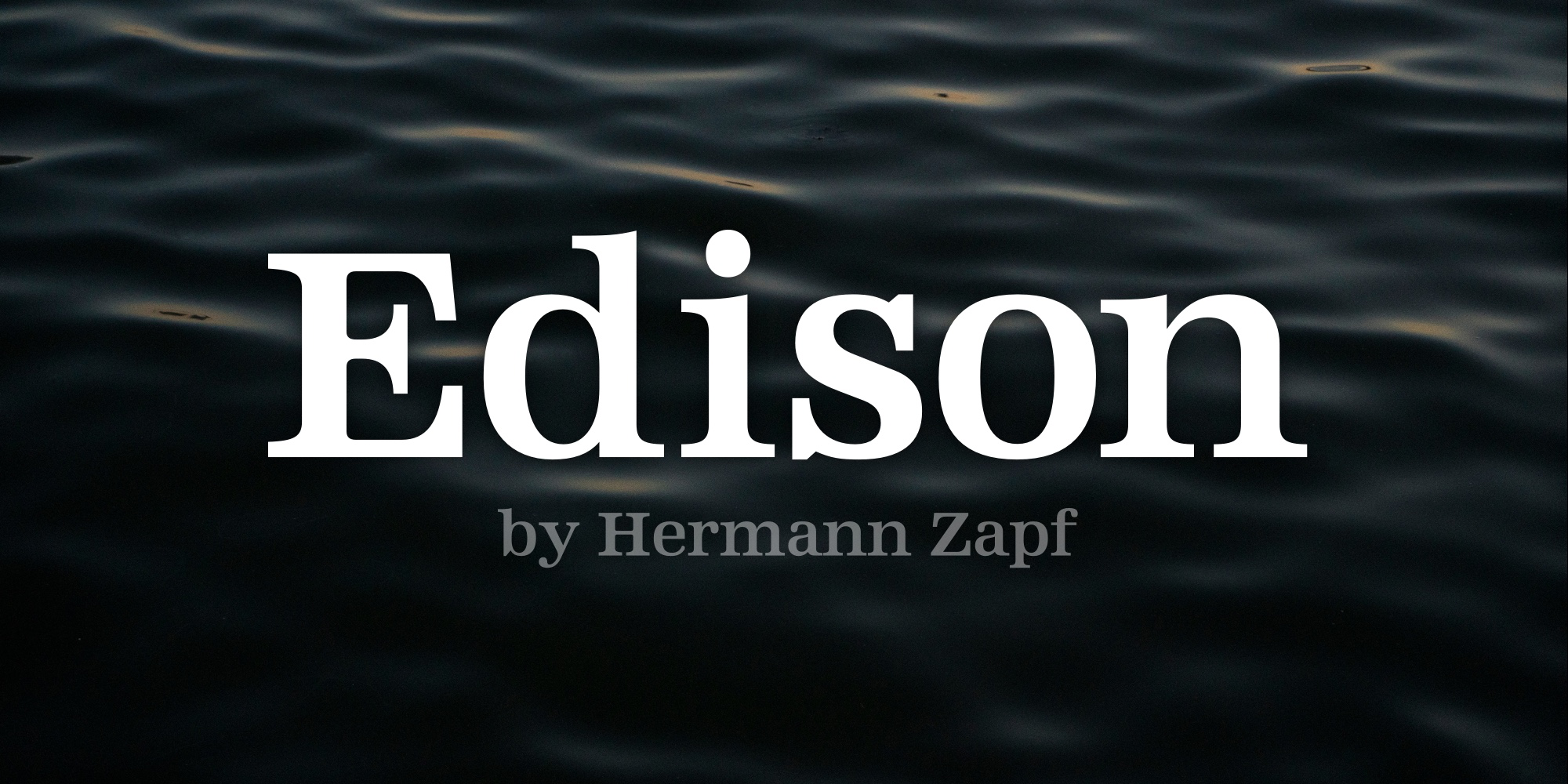
Edison Font is perfect for innovation laboratory branding, electrical engineering companies, patent documentation layouts, scientific research presentations, technology museum displays, industrial revolution exhibitions, inventor workshop signage, steam-punk inspired designs, vintage electrical equipment catalogs, and historical science communication materials. Its inventive character makes it ideal for projects requiring scientific authority and technological innovation representation.
What makes Edison Font exciting is its brilliant capture of the spirit of scientific discovery and technological innovation with precise letterforms and engineering-inspired details that celebrate the golden age of invention and industrial progress. The font features methodical construction, technical precision, and systematic character development that create authentic scientific atmosphere and inventive credibility. Its innovative personality brings intellectual authority to contemporary designs while maintaining the craftsmanship quality that honors the legacy of great inventors and scientific pioneers. The carefully engineered technical elements ensure visual clarity while preserving the distinctive character that embodies the essence of scientific breakthrough and technological advancement.
Edison Font comes in multiple innovative variations including Regular, Bold, Light, Technical, and Display styles. Each family member maintains the distinctive scientific character while offering comprehensive flexibility for technical documentation and innovation-focused brand system development. The complete font family includes technical symbols, scientific notation marks, and engineering punctuation that enhance the inventive aesthetic and provide essential tools for scientific communication excellence.
Whether you're developing technology brands, scientific institutions, or innovation-focused projects, Edison Font Free Download provides the inventive authority needed to communicate with technical audiences and science enthusiasts who appreciate technological heritage and scientific precision. The font's innovative appeal resonates with engineers, researchers, and inventors seeking authentic scientific credibility and technical sophistication. Its comprehensive character set includes scientific symbols and engineering marks, making it perfect for creating complete innovation brand systems and memorable scientific storytelling across diverse technology applications and research-focused design projects that celebrate human ingenuity and technological progress.